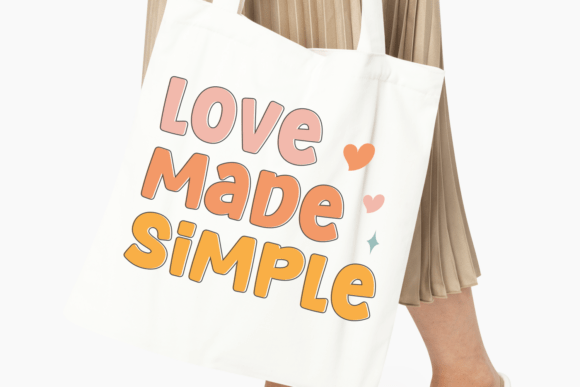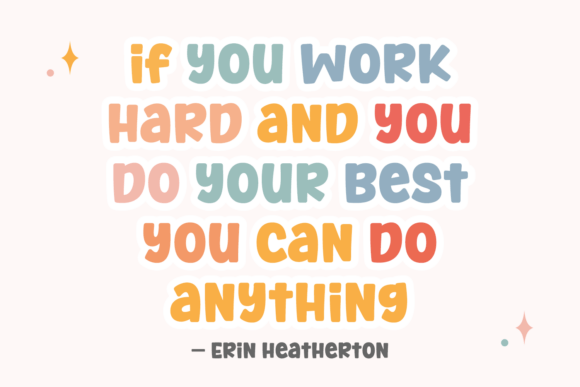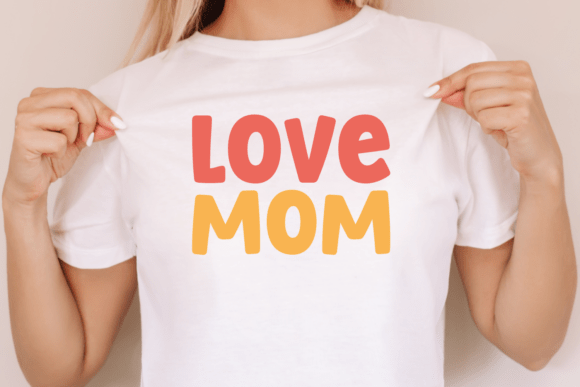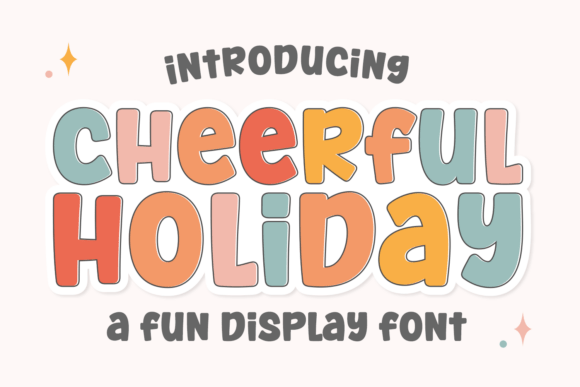
Introducing Cheerful Holiday Font: The Ultimate Typeface for Joyful Designs
Are you looking for a font that can add a dash of fun and playfulness to your designs? Look no further than the Cheerful Holiday font! This lively typeface is designed to radiate an infectious, joyful energy that’s perfect for a variety of projects, from children’s product design to birthday event decor and casual gaming environments.
The Personality of Cheerful Holiday Font
Cheerful Holiday font seamlessly blends audacity and springiness to create a unique and engaging visual identity. The font’s rounded corners offset its impressively bold stroke, crafting an inviting sense of presence and engagement that’s hard to ignore. With its inherent merriment, Cheerful Holiday injects a youthful, dynamic feel into every project, making it an excellent choice for designers and crafters who want to create something truly special.
Perfect for Playful Designs
Cheerful Holiday font is a brilliant match for designs that require a playful and fun approach. Here are some ideas for projects that can benefit from this fantastic typeface:
• Children’s product design: Create engaging and interactive products for kids, such as toys, books, and games, with Cheerful Holiday font.
• Birthday event decor: Add a touch of joy and festivity to birthday party decorations, invitations, and other materials with this lively font.
• Casual gaming environments: Enhance the playful appeal of casual games with Cheerful Holiday font, creating a fun and immersive experience for players.
Readability and Versatility
Although Cheerful Holiday font boasts a significant level of boldness, it doesn’t compromise on readability. This makes it an excellent choice for designs that require both visual impact and clear communication. The font thrives in a spectrum of vibrant hues, projecting a compelling call of sweets-shop allure that’s sure to grab attention.
Adding Extra Visual Impact
To take your designs to the next level, consider combining Cheerful Holiday font with white borders or a sticker-style offset. This creates a distinct presence that’s further amplified, transporting your typeface from memorable to indelible. Here are some ideas for using Cheerful Holiday font with added visual impact:
• Digital planner stickers: Create eye-catching stickers for digital planners with Cheerful Holiday font and white borders or sticker-style offset.
• YouTube thumbnail visuals: Enhance your YouTube thumbnails with Cheerful Holiday font and a bold, colorful design that’s sure to grab attention.
Pairing with Whimsical Doodle Sparkles
For an extra touch of magic, consider complementing Cheerful Holiday font with whimsical doodle sparkles. This creates a playful and dynamic visual identity that’s perfect for designers and crafters who want to add a little extra something to their designs.
In conclusion, Cheerful Holiday font is a fantastic typeface that’s perfect for designers and crafters who want to add a dash of fun and playfulness to their designs. With its lively personality, bold stroke, and rounded corners, this font is sure to radiate an infectious, joyful energy that’s perfect for a variety of projects. Whether you’re creating children’s products, birthday event decor, or casual gaming environments, Cheerful Holiday font is an excellent choice. So why not give it a try and see how it can elevate your designs to the next level?